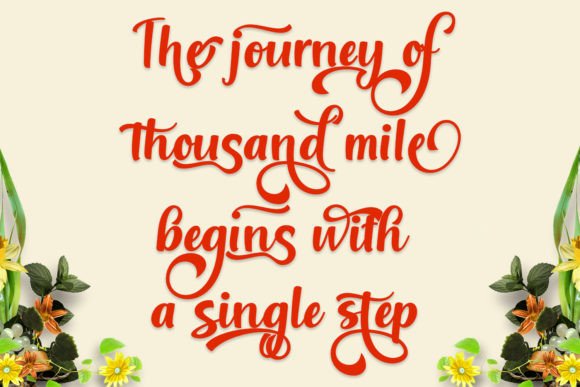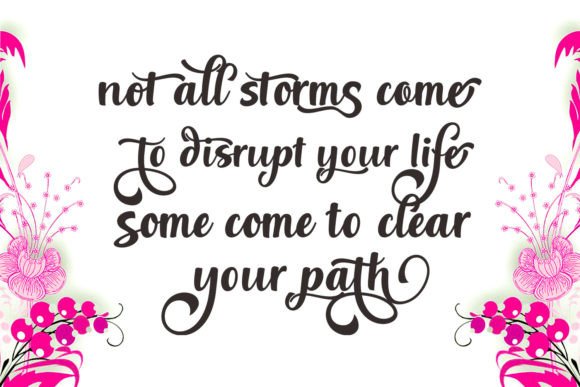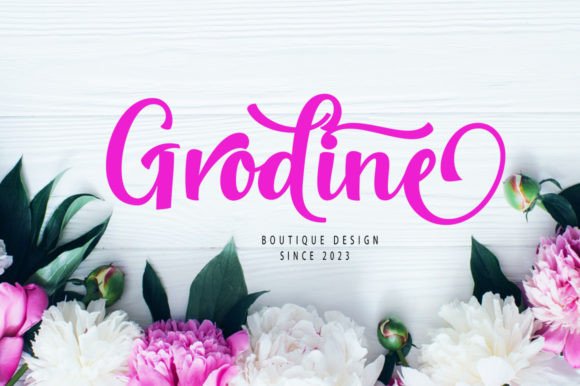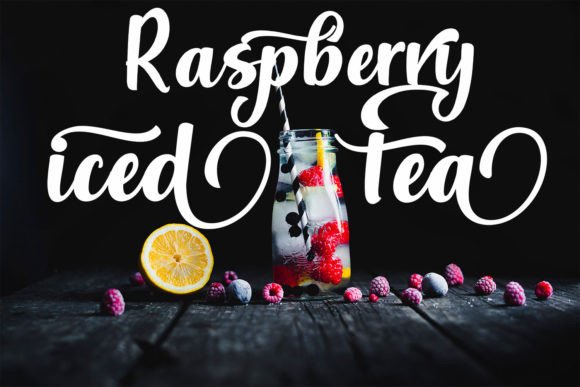
Introduction to Gulates Font
As designers, we’ve all had those moments when we stumble upon the perfect font that elevates our creative project from ordinary to extraordinary. For me, it was the first time I laid eyes on the Gulates Font. Its soft, sweet curves and elegant touch immediately captured my attention, and I knew I had to learn more about this hidden gem.
The Gulates Font is a versatile and high-quality design resource that can be used for a wide range of applications, from logos and wedding invitations to headings, t-shirts, and signage. With its transparent background and free download option, it’s an invaluable resource for designers looking to add a touch of sophistication to their work.
Whether you’re working on a personal project or a commercial design, the Gulates Font is sure to be a valuable addition to your design arsenal. Its unique style and versatility make it an ideal choice for designers who want to create something truly special.
Key Features of Gulates Font
- High-quality design for creative projects, ideal for graphic designers and artists
- Unique, modern design with a transparent background, perfect for backgrounds and overlays
- Supports multiple languages and characters, making it a versatile design resource
Honest Review: Gulates Font
I recently came across the Gulates Font, and I must say, it’s a game-changer for designers. With its high quality and versatile design, it’s perfect for any creative project. The font is free to download, which is a major plus in my book.
Here are some of the things I love about the Gulates Font: ✨
- Unique and creative design that sets it apart from other fonts
- Works well on both light and dark backgrounds, including transparent backgrounds
- Highly customizable, making it perfect for designers who want to add a personal touch to their projects
- May not be suitable for all types of projects, particularly those that require a more formal or traditional font
- Limited support for non-Latin languages, which may be a drawback for designers working on international projects
Overall, I’m impressed with the Gulates Font. It’s a high-quality design resource that’s perfect for creative projects, and its free download option makes it an excellent choice for designers on a budget.
Tips for Getting the Most Out of Gulates Font
To get the most out of Gulates Font, use it with a transparent background to create a stunning visual effect. Experiment with different font sizes and styles to add depth and interest to your design. You can also combine Gulates Font with other design resources to create a unique and eye-catching design.
Common Use Cases for Gulates Font
Gulates Font is perfect for creative projects such as logo design, brochures, and social media graphics. Its high-quality design makes it an ideal choice for businesses and individuals looking to create a professional and visually appealing design.